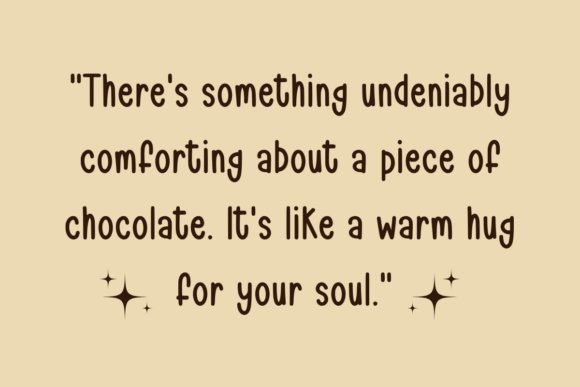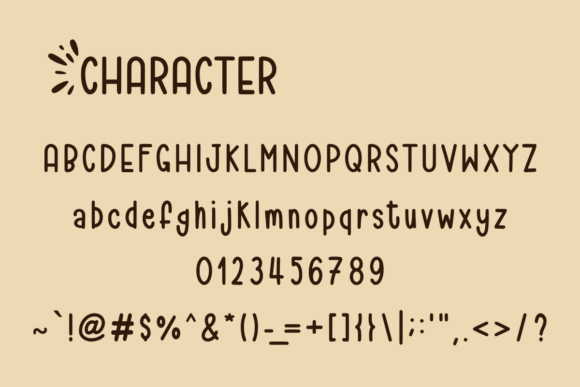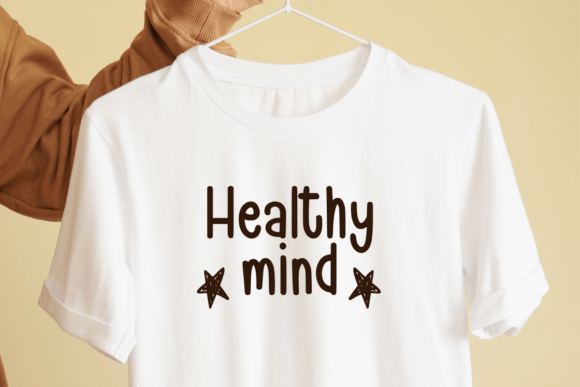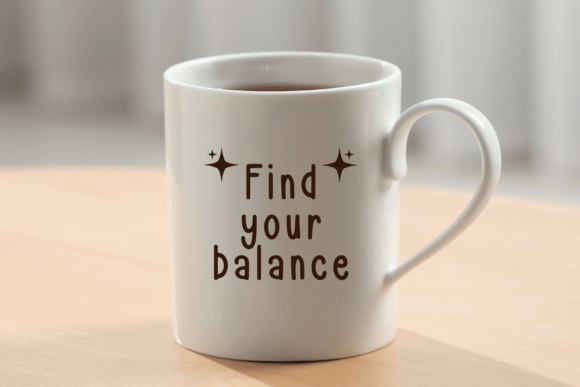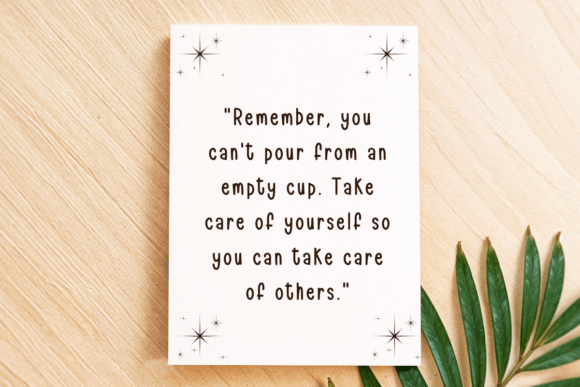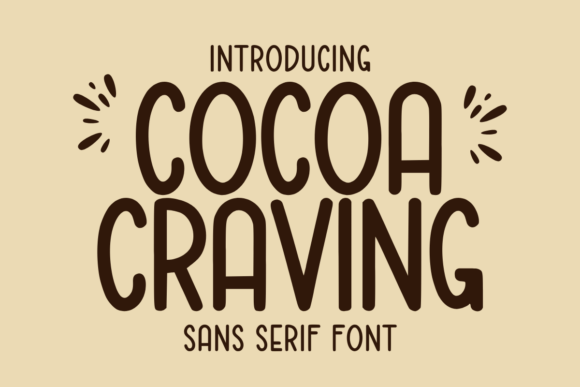
Unleash Your Creativity with Cocoa Craving Font
Are you a designer, crafter, or stationery enthusiast looking for a font that adds a personal touch to your projects? Look no further than Cocoa Craving, a charming, handwritten sans serif font that’s perfect for a variety of paper-based needs. In this article, we’ll explore the features and benefits of Cocoa Craving, and how it can elevate your designs and documentation tasks.
What is Cocoa Craving Font?
Cocoa Craving is a delightful, handwritten sans serif font that’s brimming with personality. Its light-hearted style makes it an ideal choice for personal projects, journals, notes, planners, and scrapbooks. The font’s playful aesthetics are perfect for adding a dash of enjoyment to your routine documentation tasks, making it a great addition to your font collection.
Perfect for Personal Projects
Cocoa Craving is perfectly designed for personal projects, bringing an endearing touch to journals, notes, planners, and scrapbooks. Whether you’re a teacher, stationery enthusiast, or crafter, this font lends itself wonderfully to greeting cards and invitations. Its charming style is sure to make your projects stand out and leave a lasting impression.
Ideal for Teachers and Stationery Enthusiasts
Teachers and stationery enthusiasts will love Cocoa Craving for its versatility and charm. Use it to create engaging lesson plans, worksheets, and activity sheets that will captivate your students’ attention. For stationery enthusiasts, Cocoa Craving is perfect for designing beautiful journals, planners, and greeting cards that make thoughtful gifts or personal keepsakes.
A Splendid Choice for Paper-Based Needs
Cocoa Craving is a splendid choice for a variety of paper-based needs, including daily, weekly, and monthly planners, note-taking essentials like sheets, workbooks, and notepads. Its light-hearted style enhances journal templates and KDP interiors, making it an attractive selection for printable content. Whether you’re creating printable art, planners, or organizers, Cocoa Craving is the perfect font to add a touch of personality to your designs.
Benefits of Using Cocoa Craving Font
So, why choose Cocoa Craving font for your projects? Here are just a few benefits:
- Unique and playful style: Cocoa Craving adds a dash of personality to your designs, making them stand out from the crowd.
- Versatile: Use Cocoa Craving for a variety of paper-based needs, from journals and planners to greeting cards and invitations.
- Easy to read: The font’s clear and legible design makes it easy to read, even in small sizes.
- Perfect for personal projects: Cocoa Craving is ideal for personal projects, adding a touch of warmth and personality to your designs.
- Use it for headings and titles: Cocoa Craving is perfect for headings and titles, adding a touch of personality to your designs.
In conclusion, Cocoa Craving font is a charming, handwritten sans serif font that’s perfect for designers, crafters, and stationery enthusiasts. Its light-hearted style and playful aesthetics make it an ideal choice for personal projects, journals, notes, planners, and scrapbooks. With its versatility and ease of use, Cocoa Craving is a delightful addition to your font collection, adding a dash of enjoyment to your routine documentation tasks.